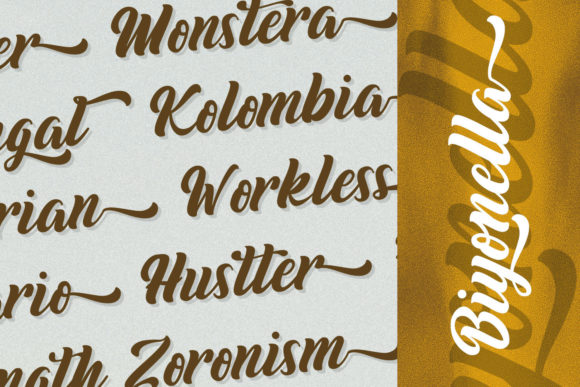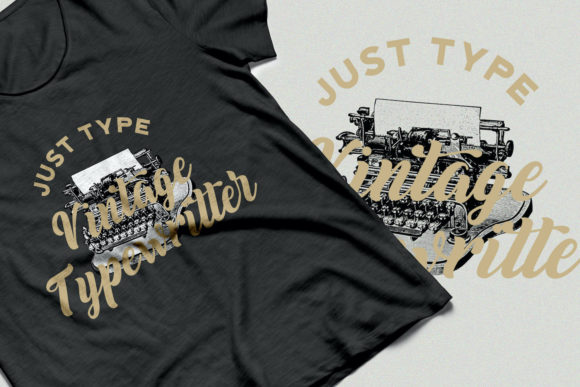
Biyonella Font
db-ku.com - Script & Handwritten -- Biyonella is a retro, bold script font. It is curved, rounded, and has a unique vintage style, that is perfect for branding. Add it to your most creative ideas and notice how it makes them come alive! This font is PUA encoded which means you can access the available glyphs and swashes with ease